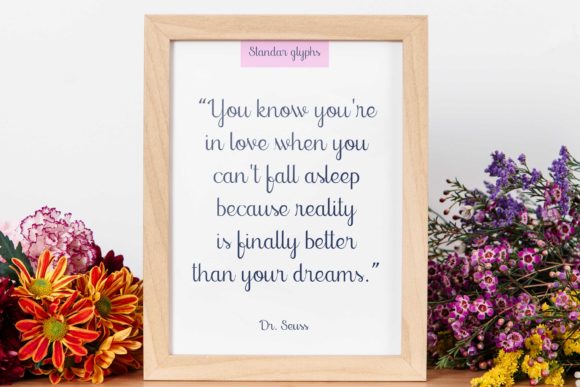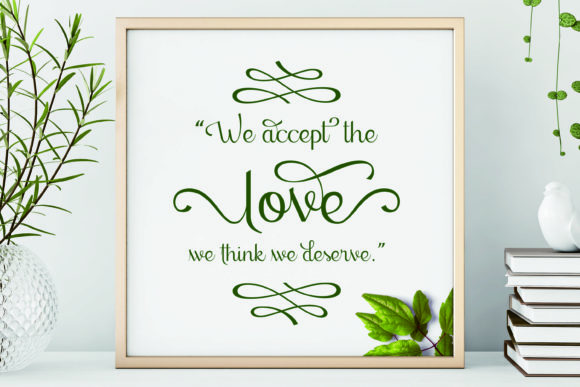
Stellar Font
db-ku.com - Script & Handwritten -- Stellar is a sophisticated handwritten font with gorgeous calligraphic elements. Fall in love with its unique, personal charm!